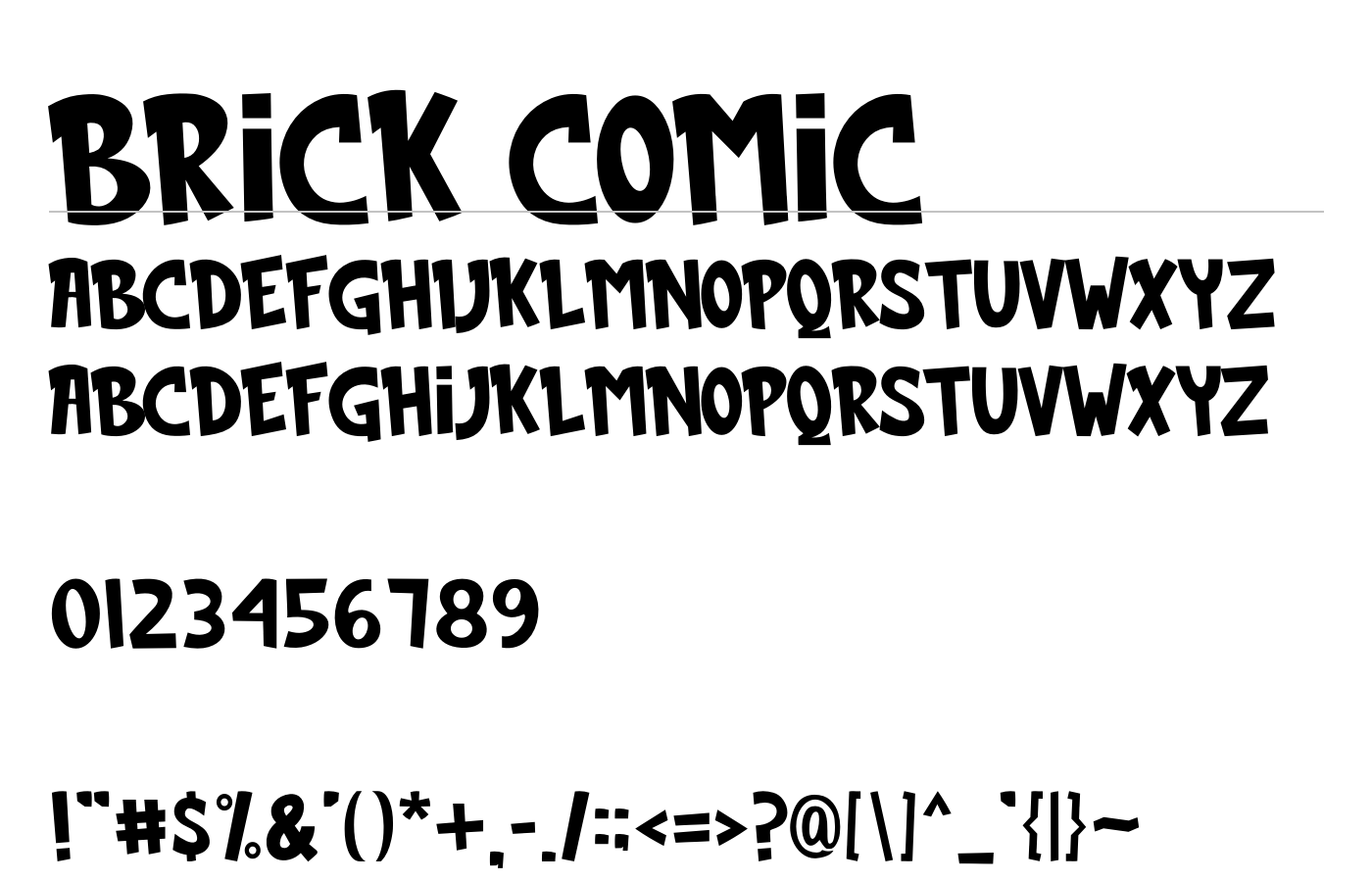
Brick Comic is a bold, playful sans serif font with a comic-style flair, featuring uneven, whimsical letterforms that convey a fun and informal tone. Its lively shapes, moderate x-height, and slightly irregular stroke widths make it ideal for eye-catching headlines, children’s content, and casual branding where an approachable, energetic vibe is desired. This font works best in designs that seek to engage audiences with a friendly and creative personality.
brick comic Font
About brick comic Font